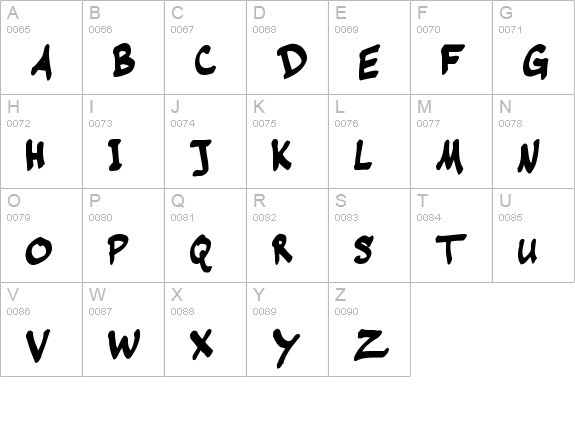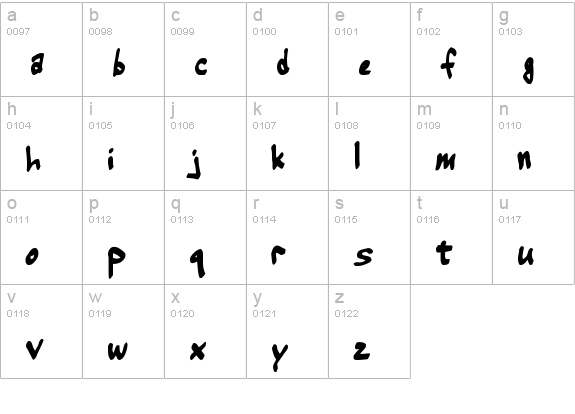
Warehouse Regular Font Details
Warehouse Regular is the standard, neutral variant in the Warehouse typeface family \xE2\x80\x94 well suited to general body text, paragraphs, and standard typographic work.
Warehouse Regular is a versatile and stylish font that is sure to make a statement in any design project. With its clean and bold lines, this font exudes confidence and professionalism. It is perfect for headlines, logos, posters, and any other design element that needs to grab attention. The Warehouse Regular font offers a unique blend of modernity and classic elegance, making it suitable for a wide range of applications. It is highly legible and easy to read, ensuring that your message comes across loud and clear to your audience. One of the best things about Warehouse Regular is that it is freely available to download at FontsMarket.com. This means that you can access this stunning font without any hassle or cost. Whether you are a professional designer or just starting out, having access to high-quality fonts for free is a huge advantage. Don't miss out on the opportunity to elevate your designs with the Warehouse Regular font. Download it today from FontsMarket.com and experience the power and versatility of this incredible font.